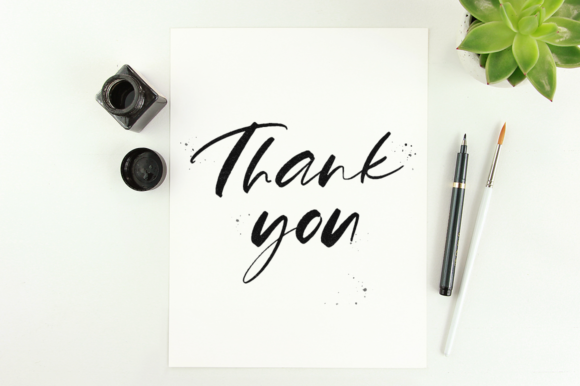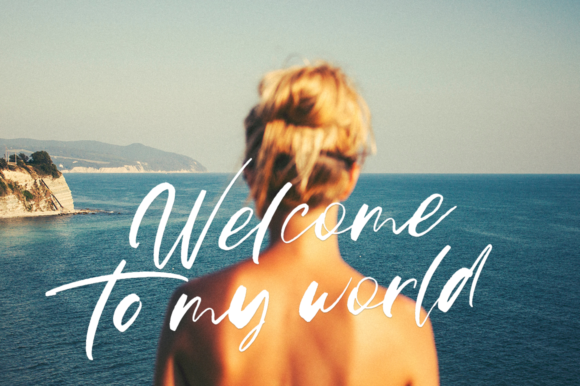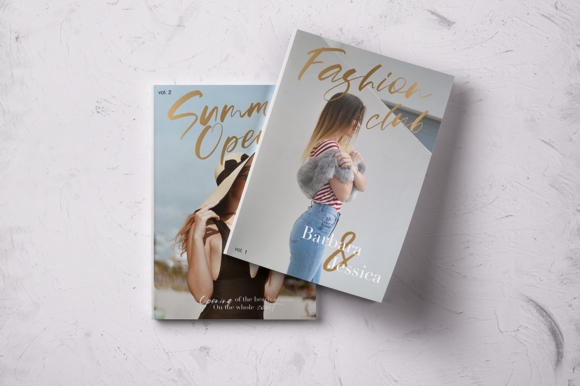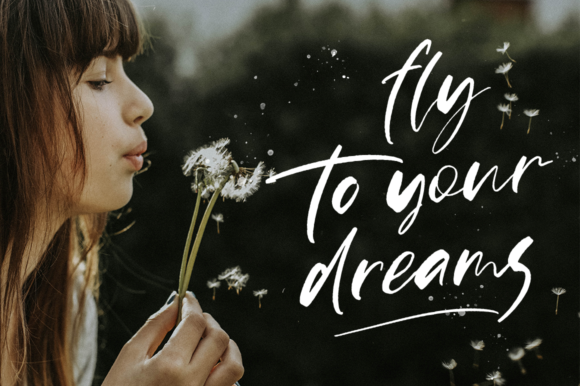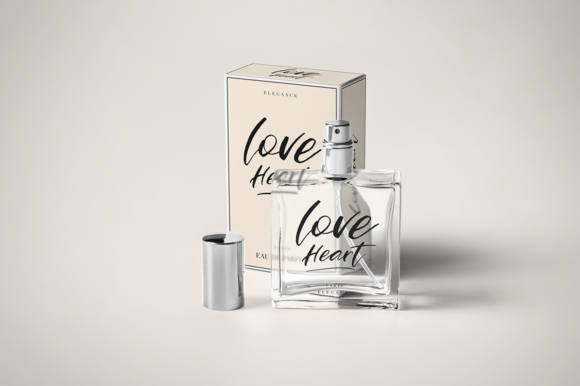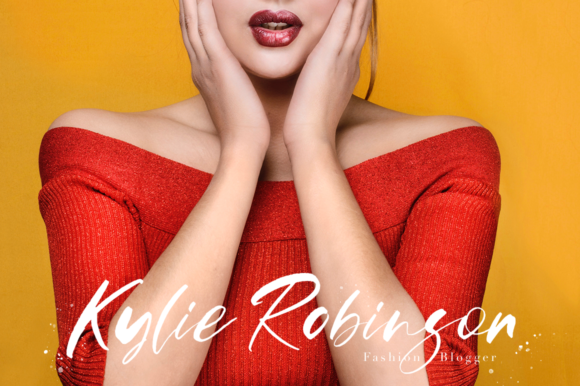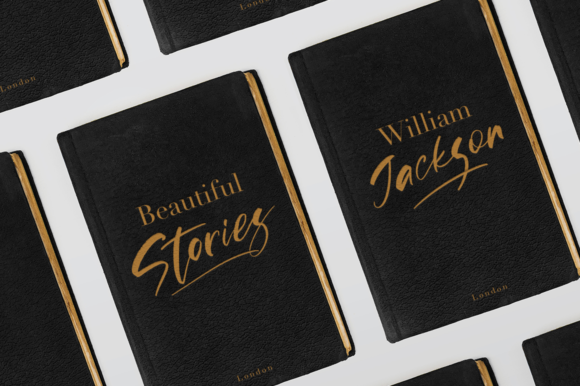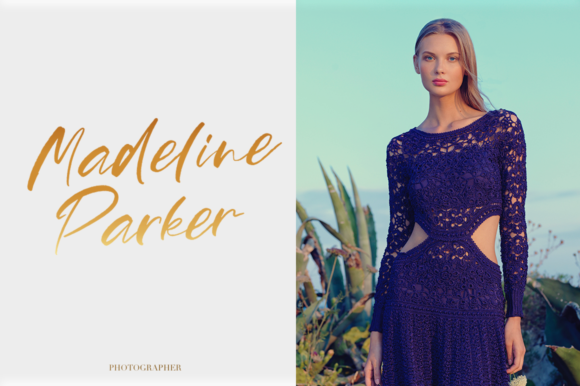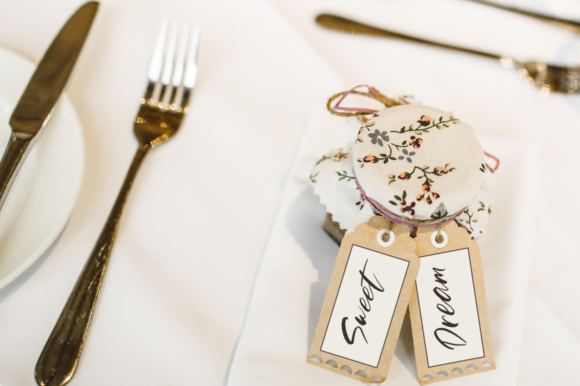
Bluebird Font
About Bluebird Font
Bluebird is a beautiful and unique handwritten font with amazing swashes. It will turn any design project into a true stand out!